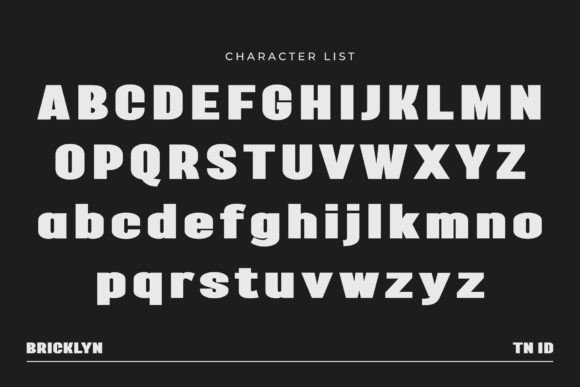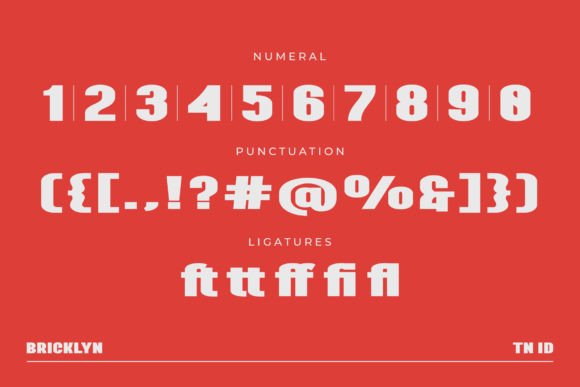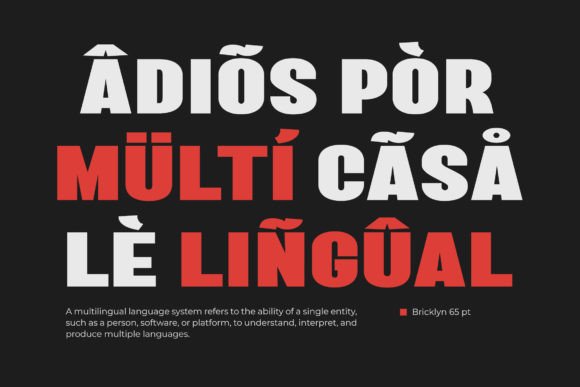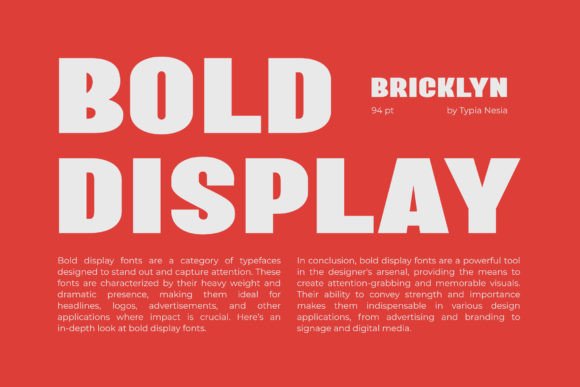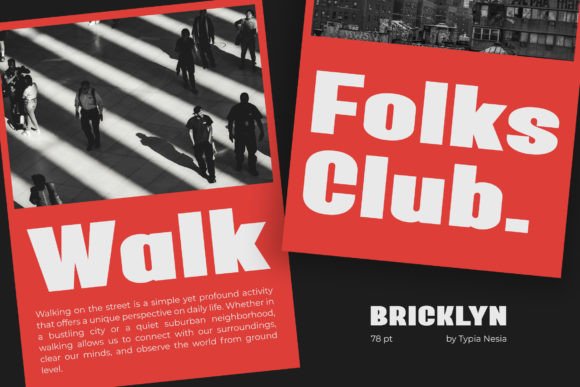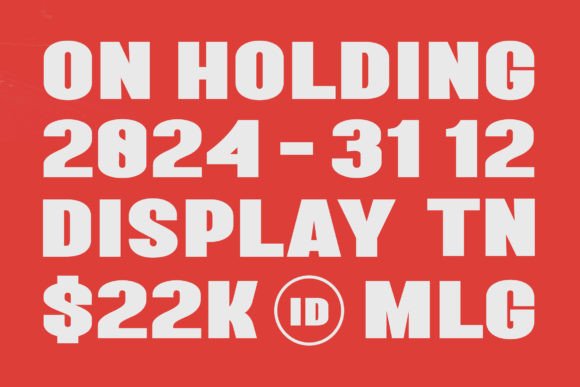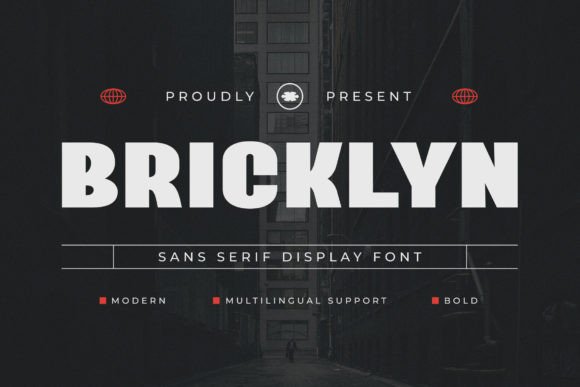
Bricklyn Font: Elevate Your Designs with a Bold and Modern Look
In the world of typography, fonts play a crucial role in conveying the message and aesthetic of a design project. For designers and crafters looking to make a statement, the Bricklyn font is an excellent choice. This sans serif font boasts a bold and modern look, making it perfect for projects that require a strong and striking visual presence.
Clean Lines and Contemporary Design
Bricklyn’s clean lines and contemporary design make it an ideal font for both minimalist and dynamic design applications. Its sleek and modern aesthetic ensures that it can be used in a variety of projects, from branding and posters to advertising and web design. Whether you’re looking to create a bold and eye-catching visual or a simple yet effective design, Bricklyn has got you covered.
One of the standout features of the Bricklyn font is its versatility. It can be used in a wide range of design applications, including:
• Branding: Create a strong and recognizable brand identity with Bricklyn’s bold and modern look.
• Posters: Make a statement with eye-catching posters that showcase Bricklyn’s clean lines and contemporary design.
• Advertising: Grab the attention of your audience with bold and striking advertisements that feature Bricklyn.
• Web Design: Enhance the visual impact of your website with Bricklyn’s modern and sleek aesthetic.
• Social Media Graphics: Create engaging and shareable social media graphics that showcase Bricklyn’s bold and contemporary design.
• Editorial Layouts: Add a touch of modernity to your editorial layouts with Bricklyn’s clean lines and sleek aesthetic.
Adding a Modern and Contemporary Touch
Bricklyn is perfect for designers and crafters looking to add a modern and contemporary touch to their projects. Its bold and striking visual presence ensures that it can elevate even the most mundane design into a visually stunning piece. Whether you’re looking to create a bold statement or a simple yet effective design, Bricklyn has the versatility to meet your needs.
Enhancing Visual Impact
The Bricklyn font is designed to enhance the visual impact of any project. Its bold and modern look ensures that it can grab the attention of your audience and leave a lasting impression. With Bricklyn, you can:
• Increase Engagement: Create visually stunning designs that engage and captivate your audience.
• Boost Brand Recognition: Develop a strong and recognizable brand identity that sets you apart from the competition.
• Elevate Your Designs: Take your designs to the next level with Bricklyn’s modern and sleek aesthetic.
In conclusion, the Bricklyn font is an excellent choice for designers and crafters looking to add a bold and modern touch to their projects. Its clean lines, contemporary design, and versatility make it perfect for a wide range of design applications. Whether you’re looking to create a bold statement or a simple yet effective design, Bricklyn has the ability to enhance the visual impact of any project. So why settle for a mediocre font when you can elevate your designs with the bold and modern look of Bricklyn?